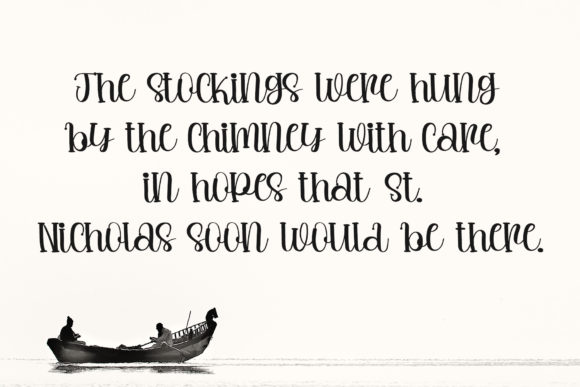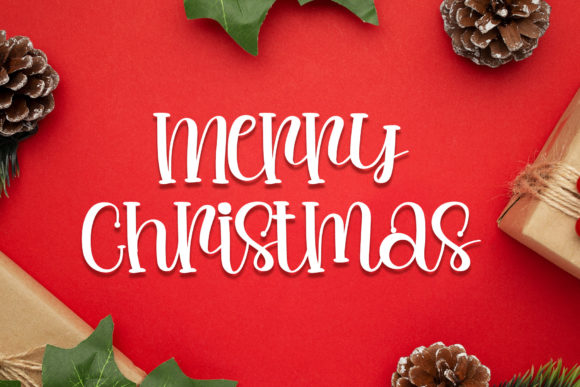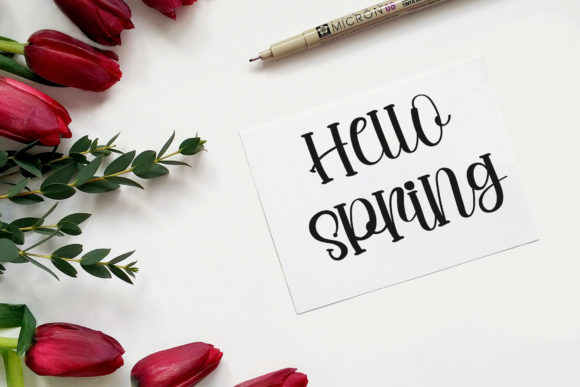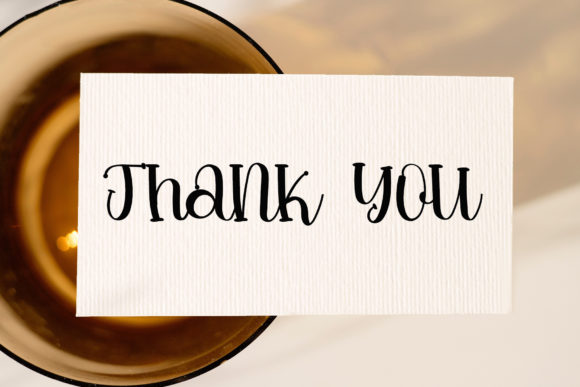
Breast Cancer Font: A Chic and Trendy Display Font for Your Designs
Are you a designer or crafter looking for a unique and eye-catching font to add to your projects? Look no further than the Breast Cancer Font! This whimsical and quirky display font is sure to brighten up any design and leave a lasting impression.
What is Breast Cancer Font?
Breast Cancer Font is a stylish and modern display font that is perfect for a variety of design projects. Its unique and playful style makes it ideal for use in titles, headings, and other display text. The font is designed to be bold and eye-catching, making it perfect for grabbing the attention of your audience.
Key Features of Breast Cancer Font
• Whimsical and Quirky: The Breast Cancer Font has a playful and quirky style that sets it apart from more traditional fonts.
• Chic and Trendy: This font is perfect for designers and crafters who want to add a touch of style and sophistication to their projects.
• Display Font: The Breast Cancer Font is designed specifically for use in display text, making it perfect for titles, headings, and other prominent text.
• Easy to Read: Despite its bold and playful style, the Breast Cancer Font is easy to read, even at smaller sizes.
How to Use Breast Cancer Font in Your Designs
The Breast Cancer Font is a versatile font that can be used in a variety of design projects, including:
• Signs and Posters: The bold and eye-catching style of the Breast Cancer Font makes it perfect for use in signs and posters.
• Social Media Graphics: Add a touch of personality to your social media graphics with the Breast Cancer Font.
• Logos and Branding: The unique style of the Breast Cancer Font makes it a great choice for logos and branding projects.
• Crafting Projects: The Breast Cancer Font is also perfect for use in crafting projects, such as scrapbooking and card making.
Why Choose Breast Cancer Font?
There are many reasons why designers and crafters choose the Breast Cancer Font for their projects. Here are just a few:
• Unique Style: The Breast Cancer Font has a unique and playful style that sets it apart from more traditional fonts.
• High-Quality: The Breast Cancer Font is a high-quality font that is designed to produce crisp and clear results.
Tips for Getting the Most Out of Breast Cancer Font
Here are a few tips for getting the most out of the Breast Cancer Font:
• Use it Boldly: The Breast Cancer Font is designed to be bold and eye-catching, so don’t be afraid to use it in large sizes.
• Experiment with Colors: The font looks great in a variety of colors, so experiment with different colors to find the one that works best for your project.
• Pair it with Other Fonts: The Breast Cancer Font pairs well with a variety of other fonts, so don’t be afraid to experiment with different combinations.
The Breast Cancer Font is a chic and trendy display font that is perfect for designers and crafters who want to add a touch of personality to their projects. Its unique and playful style makes it ideal for use in titles, headings, and other display text. With its ease of use, high-quality design, and versatility, the Breast Cancer Font is a great choice for any design project.